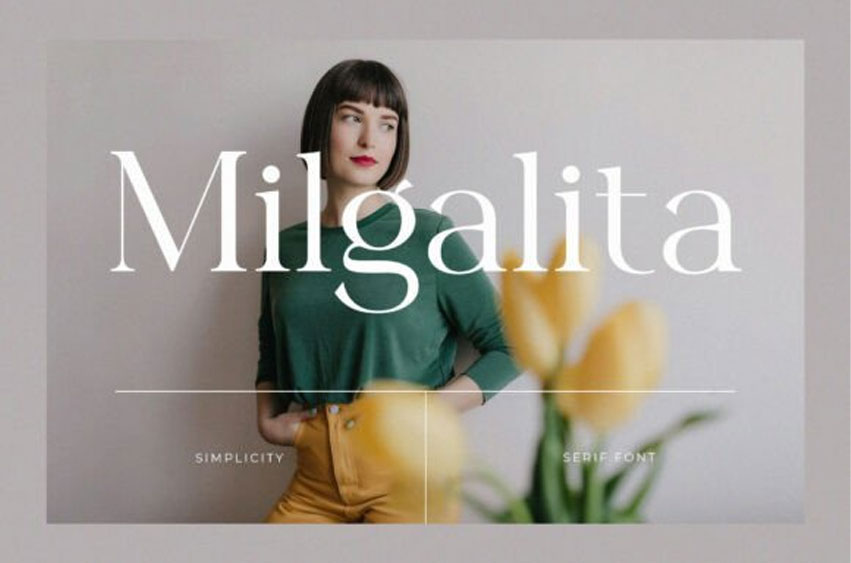
Milgalita Font
Milgalita Font is a minimalist serif font designed for effortless sophistication. With clean letterforms, elegant proportions, and subtle character, it’s the perfect choice for fashion labels, lifestyle blogs, portfolio websites, and editorial spreads.
Milgalita shines where clarity, simplicity, and tastefulness matter most.